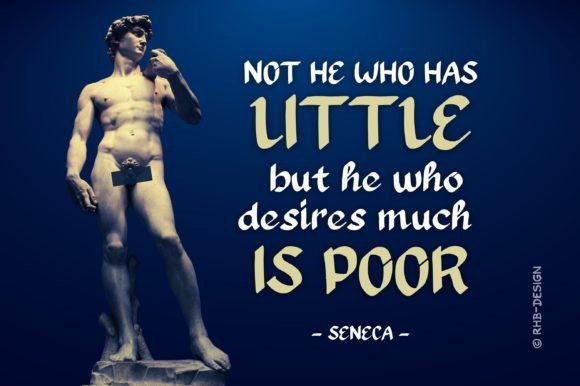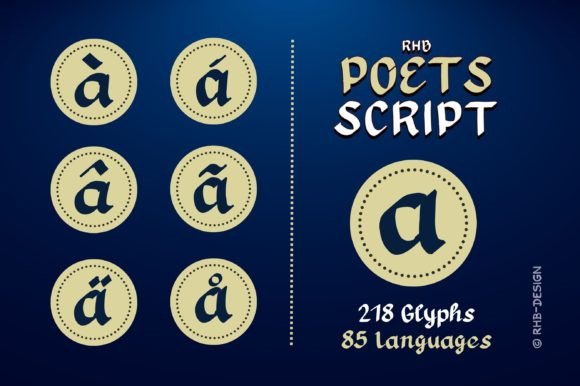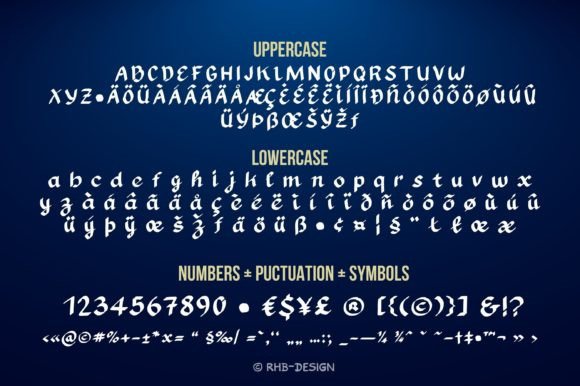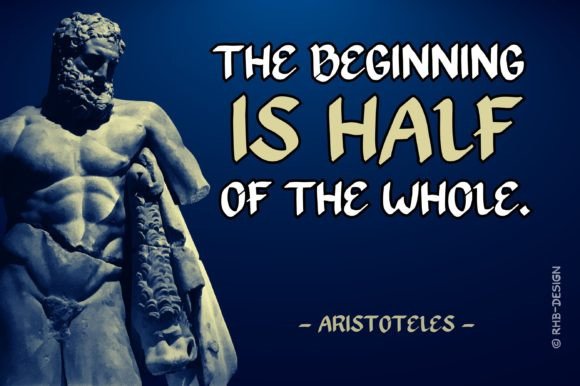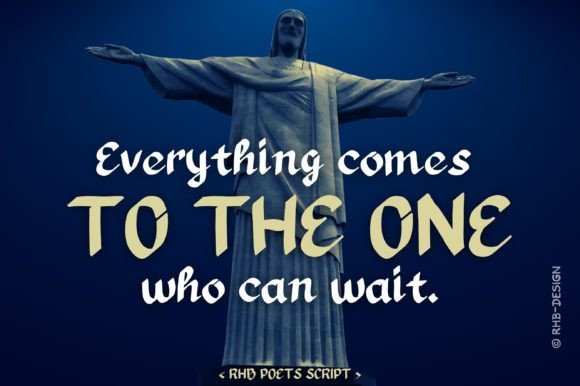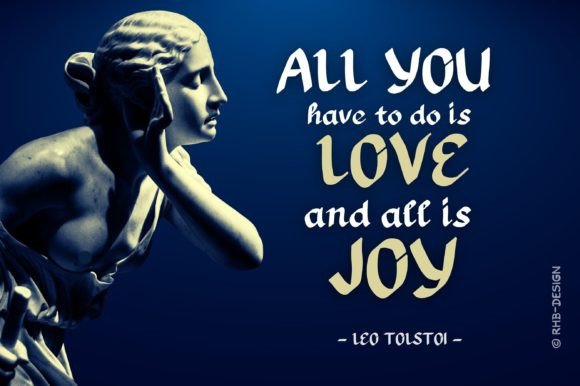
Introduction to Poets Script Font
“‘ POETS SCRIPT’ is a playful and modern font developed on iPad using the Apple Pencil.
Handwritten or hand-drawn on the iPad, the font includes 218 glyphs and supports multilingual capabilities, suitable for 85 languages including English, German, Spanish, French, Italian, Swedish, and more Standard punctuation glyphs, umlauts, and the Euro symbol are included.
Key Features of Poets Script Font